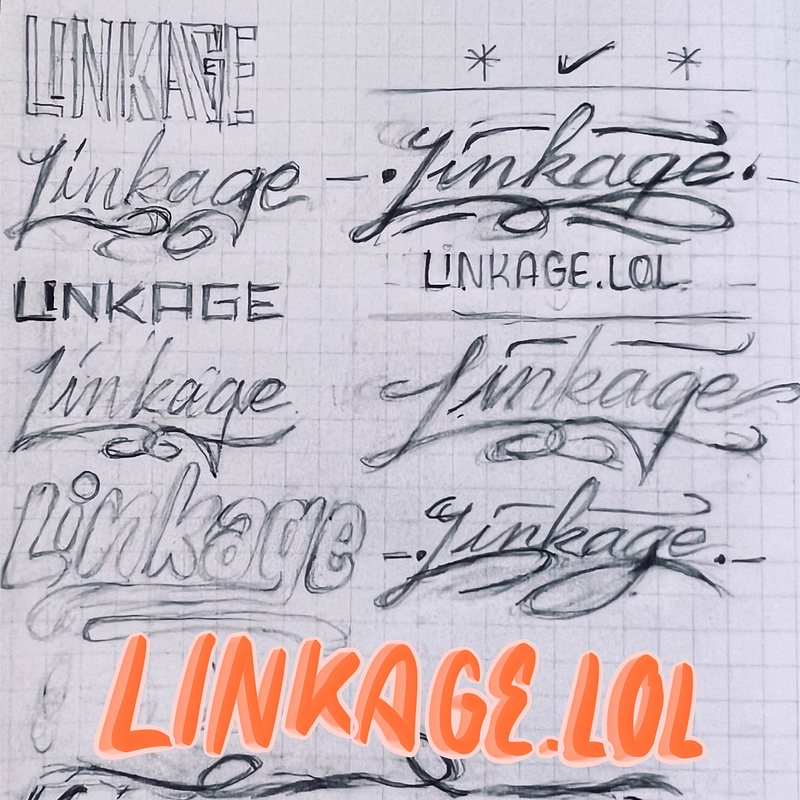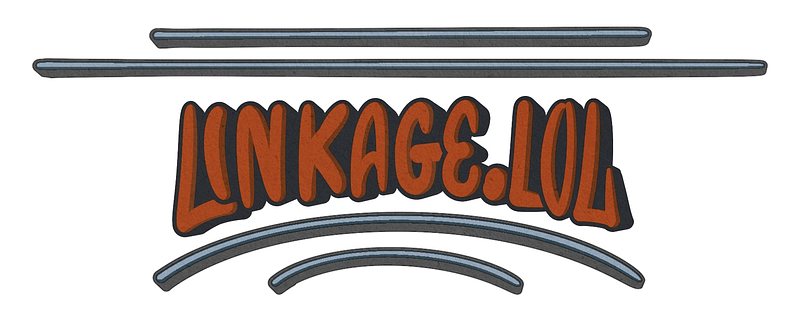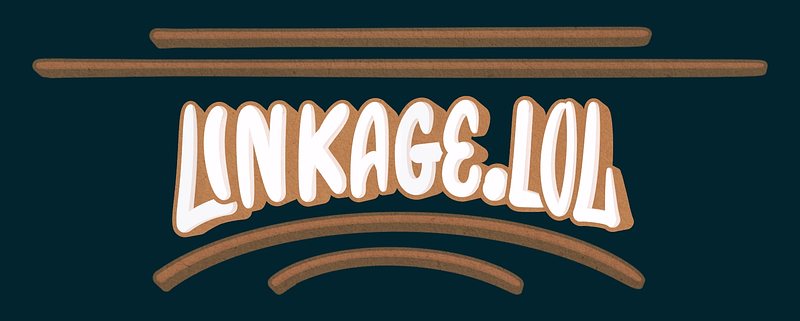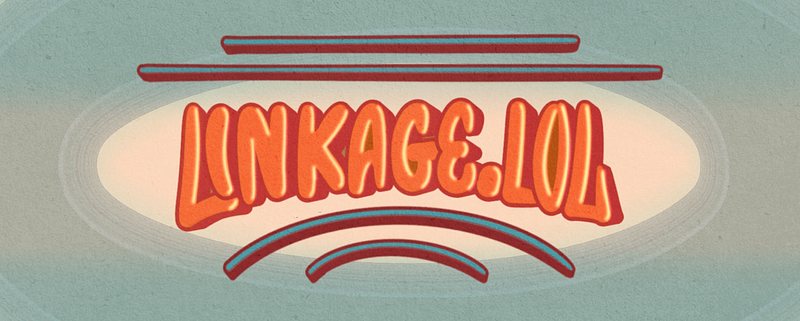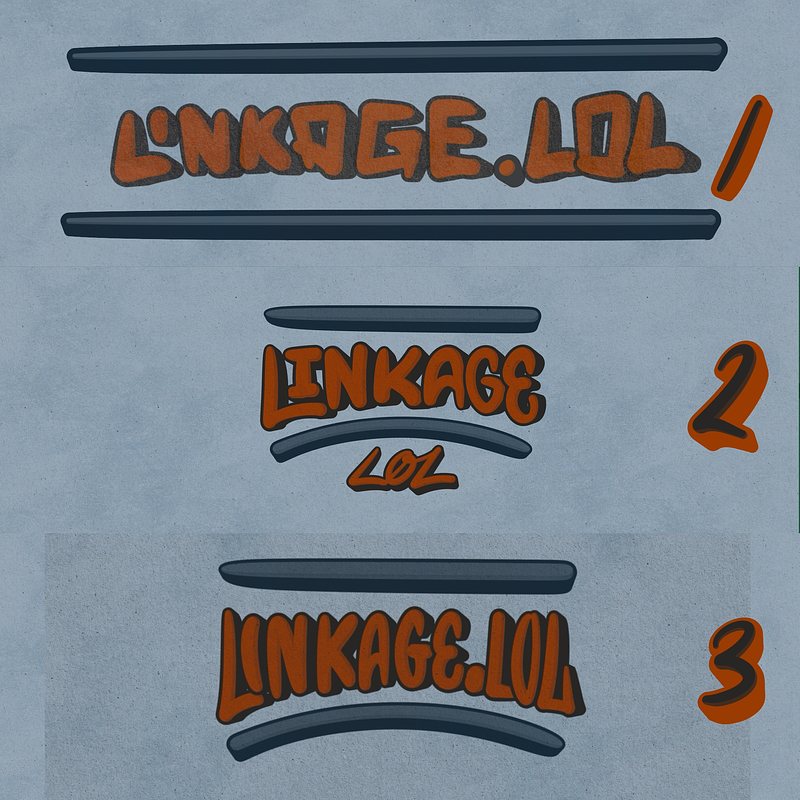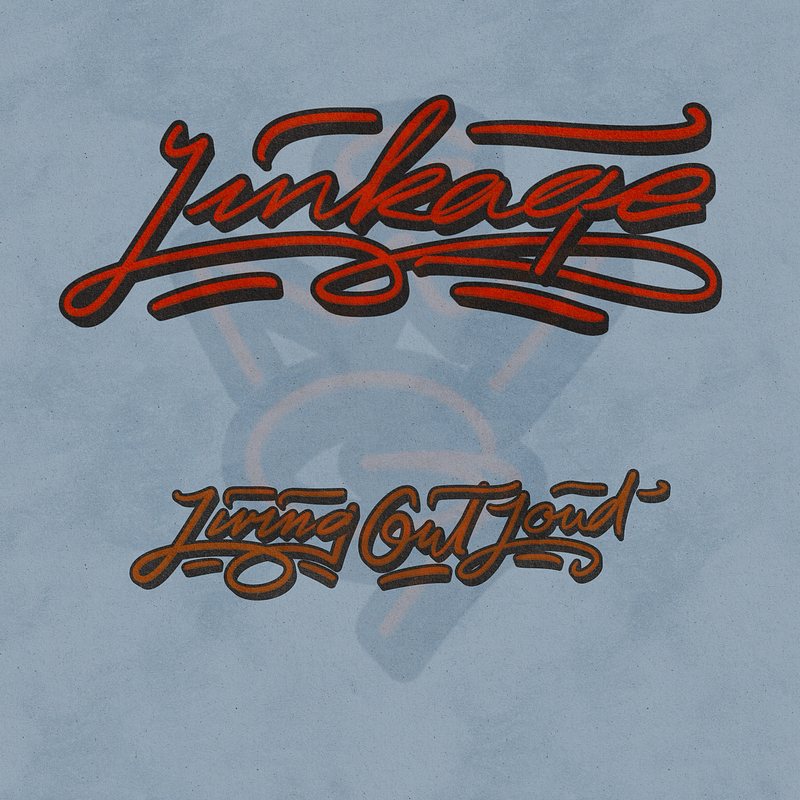
The Commission 00006-Linkage.lol for Lou Plummer
The CommissionsAfter the stress of designing business logos, I finally had the opportunity to create a fun lettering style, thanks to Lou Plummer who writes a blog specifically for app reviews!
The task was straightforward: a website header for his other blog linkage.lol.
I drafted several lettering styles and sent them to him for selection. As much as I love script styles—finding them much more enjoyable to design—he preferred the simple styles with all caps. I understand his choice; they sure are more readable.
Once we settled on the style, it was pure joy. There was nothing
complicated about it—just drawing each letter to conform to the arch
line, adding lines to emphasize the arch shape, and selecting vibrant
colors. I also created another color scheme for dark mode!
Additionally, I made the script version just because :)
///Updated: I just knew that implementing the dark mode logo was challenging. So I decided to update another color scheme also made it more fun in the process and sent it to Lou :)